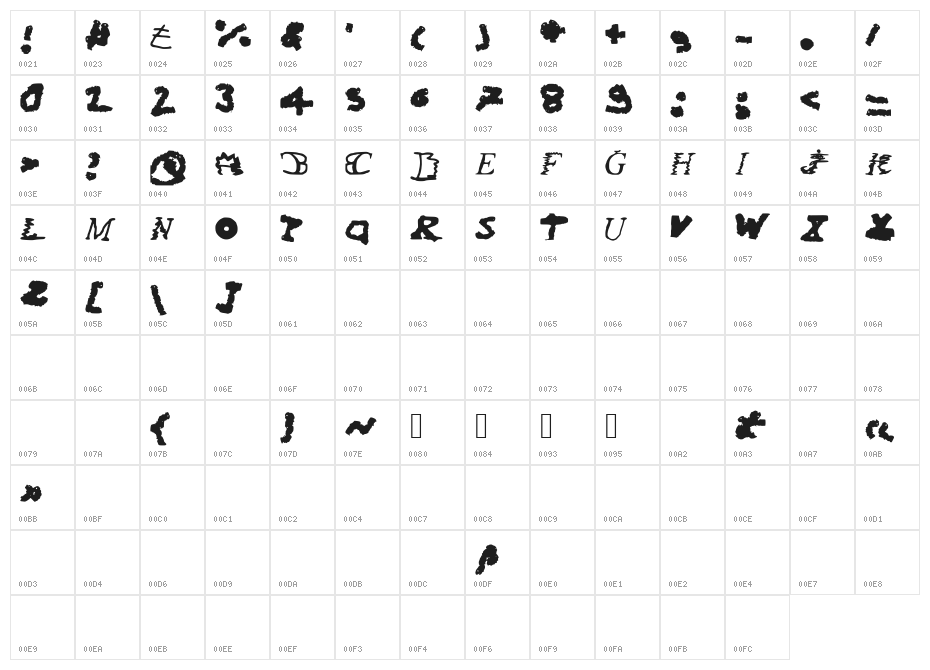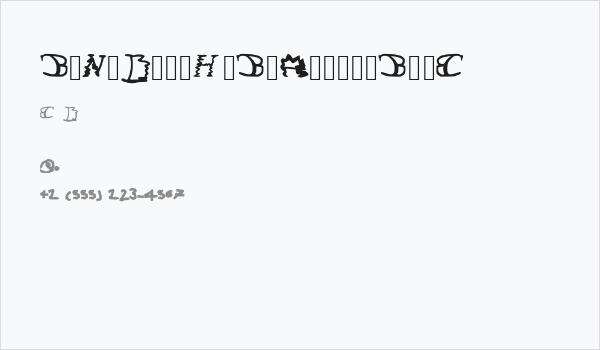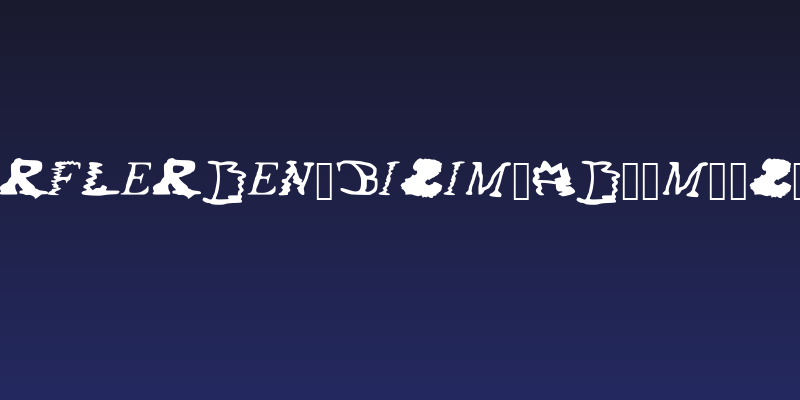
Bize_Ne_Di__er_Harflerden_Bizim_Ad__m__z_Bertug_ve_Cesur Font
Bize_Ne_Di__er_Harflerden_Bizim_Ad__m__z_Bertug_ve_Cesur Description
This font features a highly decorative and chaotic style, with each character appearing as if it has been distorted or eroded. The uppercase letters have a rugged, uneven texture, giving them a dynamic and energetic appearance. The lowercase letters follow a similar pattern, maintaining the distressed aesthetic. Numbers and special characters are equally bold and irregular, contributing to the overall theme of unpredictability and movement. This font's unique style makes it stand out, with its rough edges and varying stroke thicknesses creating a sense of urgency and intensity.